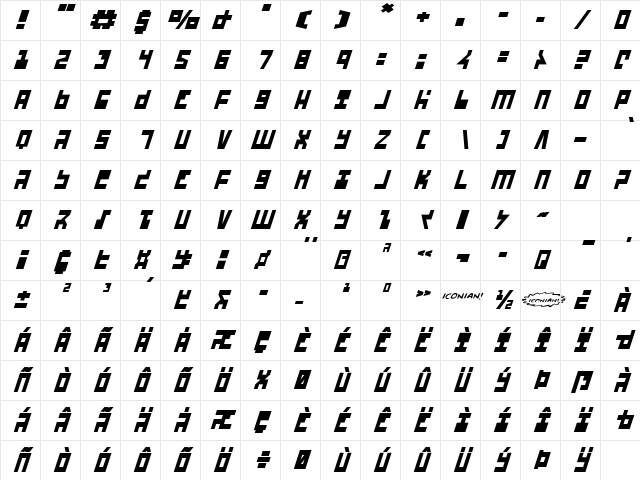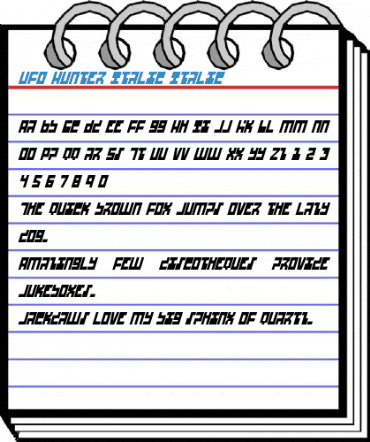
UFO Hunter Italic Italic
Style: Italic
Designer: Daniel Zadorozny
Design Context for UFO Hunter Italic
UFO Hunter Italic is a composed and adaptable typeface that performs quietly and consistently across a wide range of design contexts. The slanted form adds forward momentum and visual energy.
Pro Tip: Use UFO Hunter Italic for emphasis, pull quotes, and subheadings where its slanted energy can add rhythm to the layout.